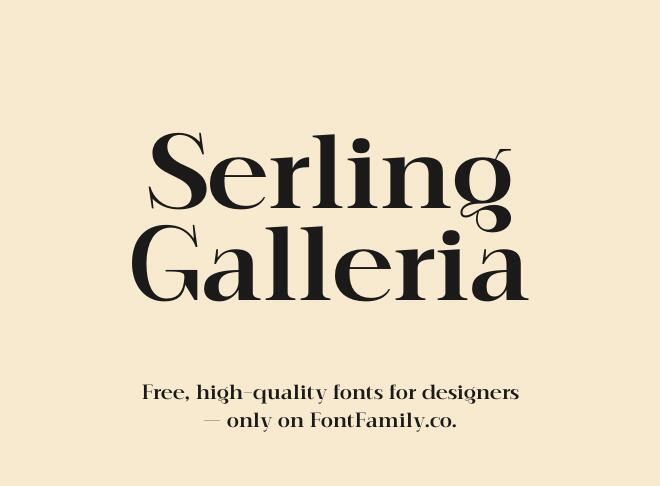
Serling Galleria Font
Serling Galleria Font is a modern, decorative typeface that brilliantly merges retro and contemporary design aesthetics. Its distinctive character set, inspired by the mid-century design era, makes it ideal for branding, poster designs, and headline texts. It's a unique blend of style and functionality, reminiscent of classic typography yet infused with a modern twist. With its vivid personality, Serling Galleria Font can make any design stand out, giving it a unique identity and voice. The font is perfect for designers looking to add a touch of retro-modern charm to their work. Its versatility makes it a great choice for a wide range of design projects, from digital media to print, and its unique character sets it apart from other fonts in its category.